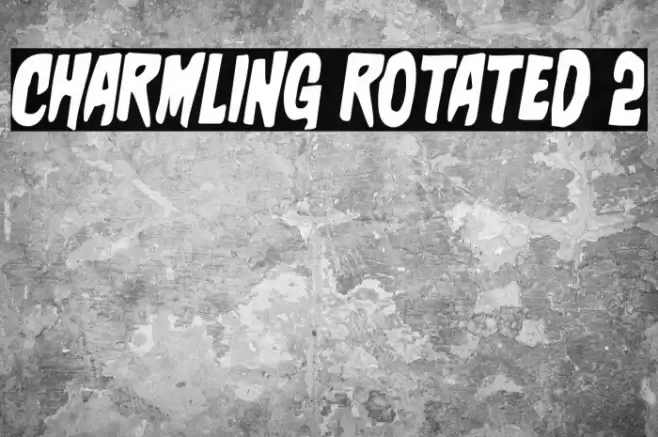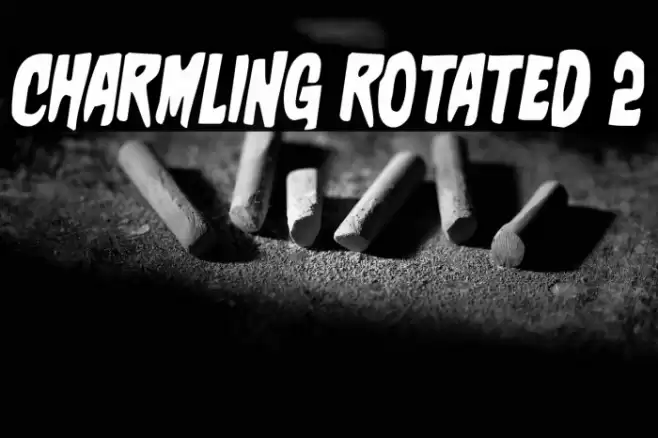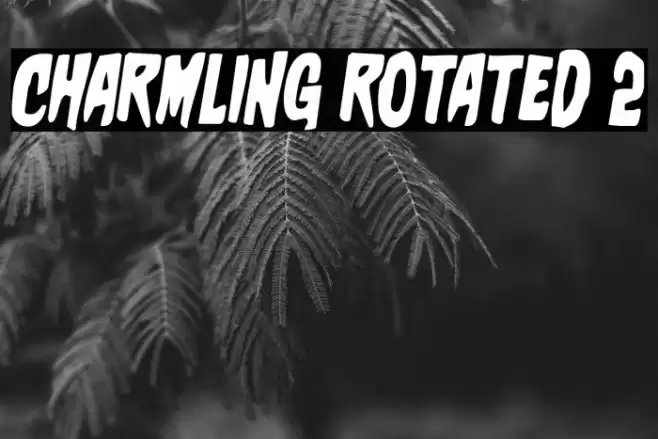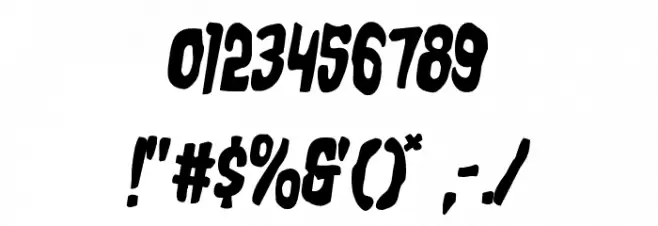
Charmling Rotated 2 Font
Charmling Rotated 2 Description
This font exhibits a bold and dynamic style with a playful and slightly irregular appearance. The characters are thick and have a hand-drawn quality, giving them a lively and energetic feel. The strokes are uneven, adding to the whimsical nature of the design. The uppercase and lowercase letters maintain a consistent style, with rounded edges and a slightly slanted orientation. The numbers and special characters follow the same aesthetic, ensuring a cohesive look across all elements. This font is well-suited for projects that require a fun and informal touch, such as children's books, playful branding, or creative posters.
A bold, playful font with a hand-drawn, energetic style from Uncategorized fonts.
- Proposed Projects: Ideal for children's books, playful branding, creative posters, and informal designs.
- Overall Style: Playful, Energetic, Hand-drawn